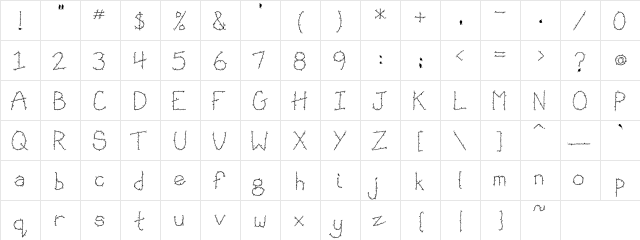
PC Lines and Loops Regular
Design Context for PC Lines and Loops Typeface
PC Lines and Loops is a composed and adaptable typeface that performs quietly and consistently across a wide range of design contexts.
Pro Tip: Use PC Lines and Loops in both headline and body roles to test its range before committing to a single application.